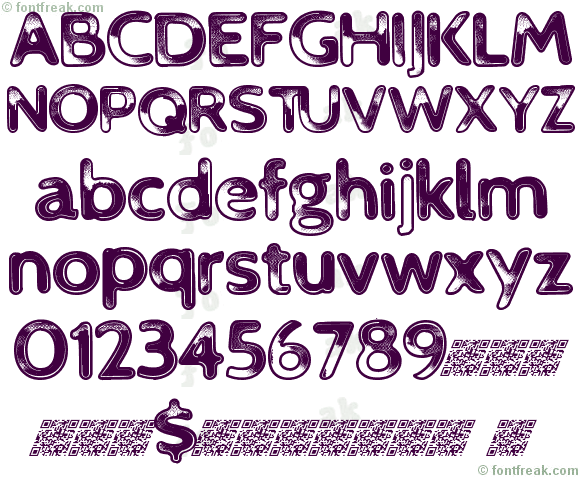
NeonTech
About NeonTech
NeonTech, created by XEROGRAPHER FONTS in 2014, is a distinctive display font that captures the essence of modern neon signage. This font is characterized by its bold, rounded letterforms that exude a playful yet futuristic vibe. The stroke weight is consistent, providing a robust appearance, while the subtle contrast adds depth and interest without overwhelming the viewer. The spacing between characters is well-balanced, ensuring legibility even at larger sizes, making it perfect for eye-catching designs.
The NeonTech font is ideal for a variety of applications. It shines in contexts such as nightlife event promotions, where its vibrant and energetic aesthetic can draw attention. Additionally, it is a fantastic choice for movie posters, especially those in the sci-fi or action genres, where a bold visual statement can enhance the theme. Restaurant menus, particularly for establishments that emphasize a modern or retro vibe, can also benefit from the font's unique style. Furthermore, content creators looking to make their social media graphics pop will find that NeonTech adds a captivating element to their posts.
In a crowded font market, NeonTech stands out with its distinctive, lively character that evokes the excitement of neon lights while remaining highly functional for various design needs. For those seeking to elevate their projects, the NeonTech font free download provides an excellent opportunity to incorporate a unique typographic style into their creative toolkit.